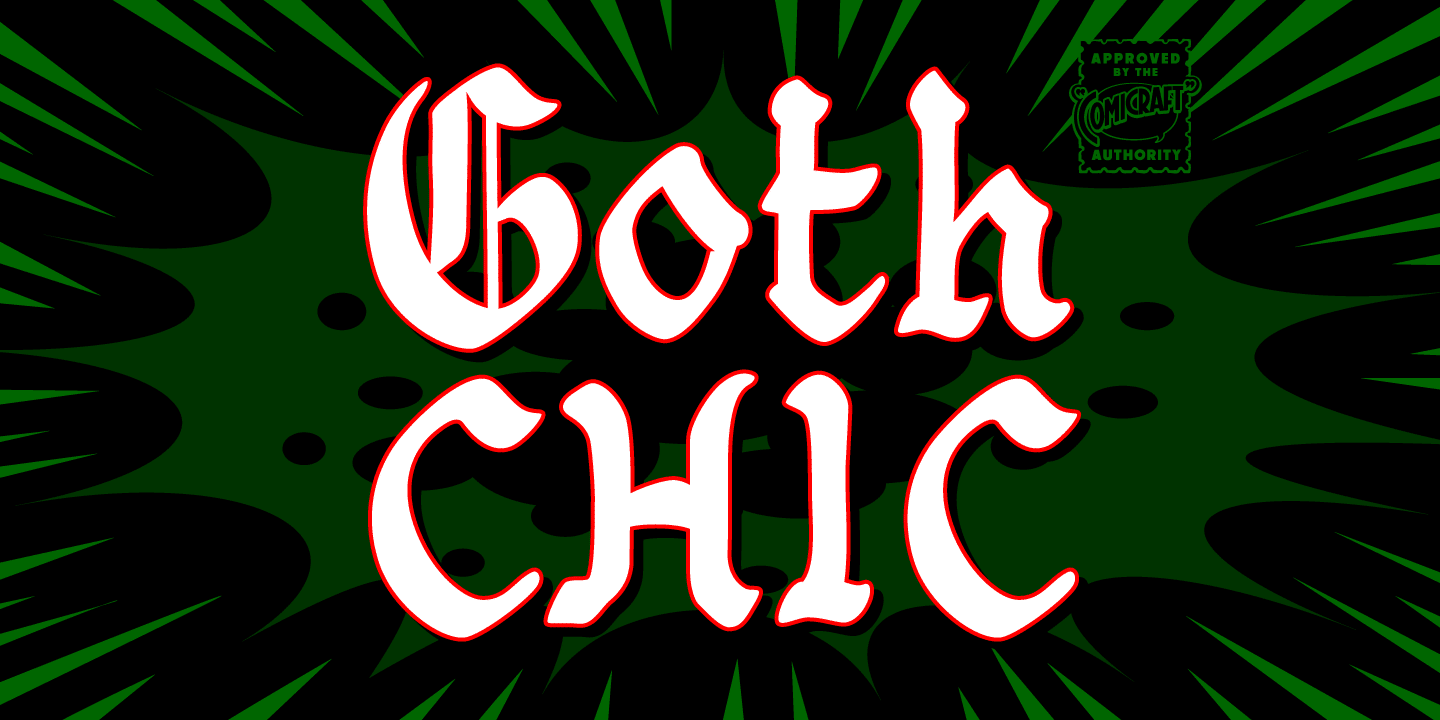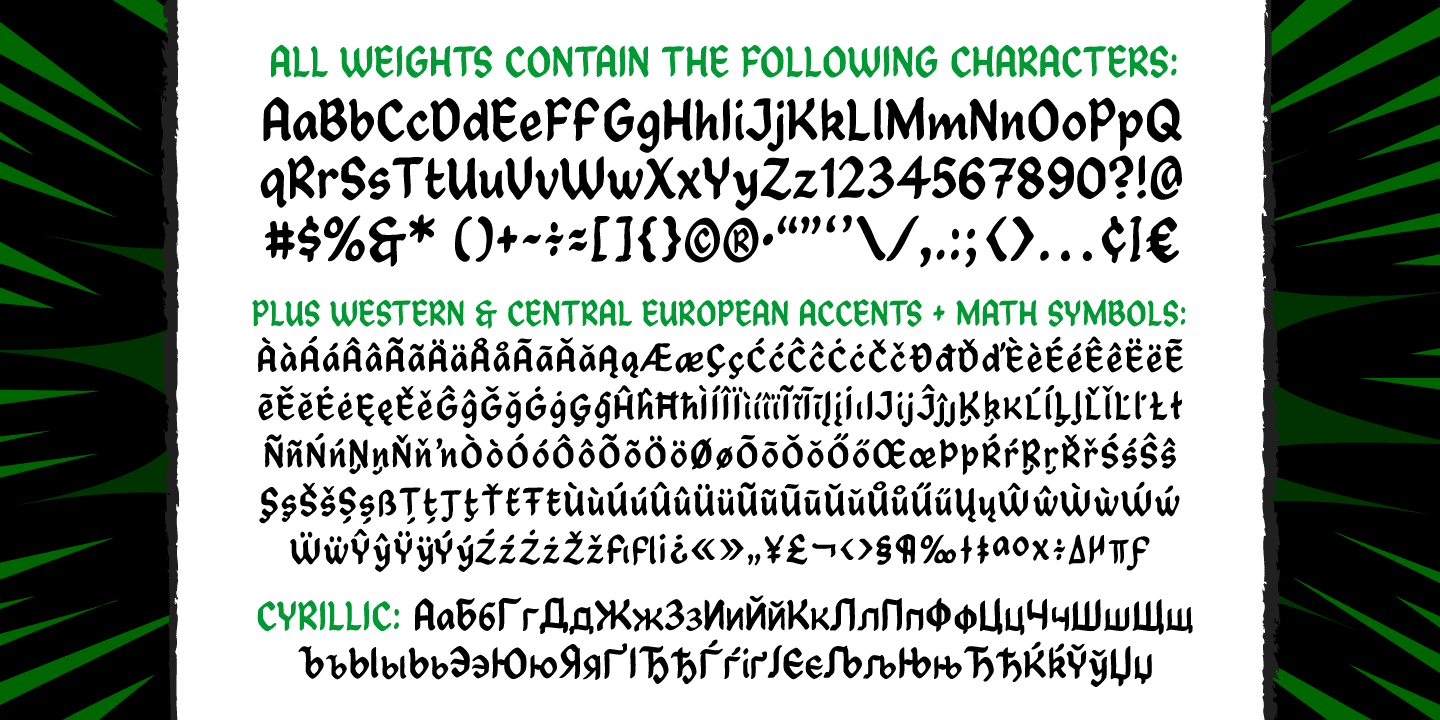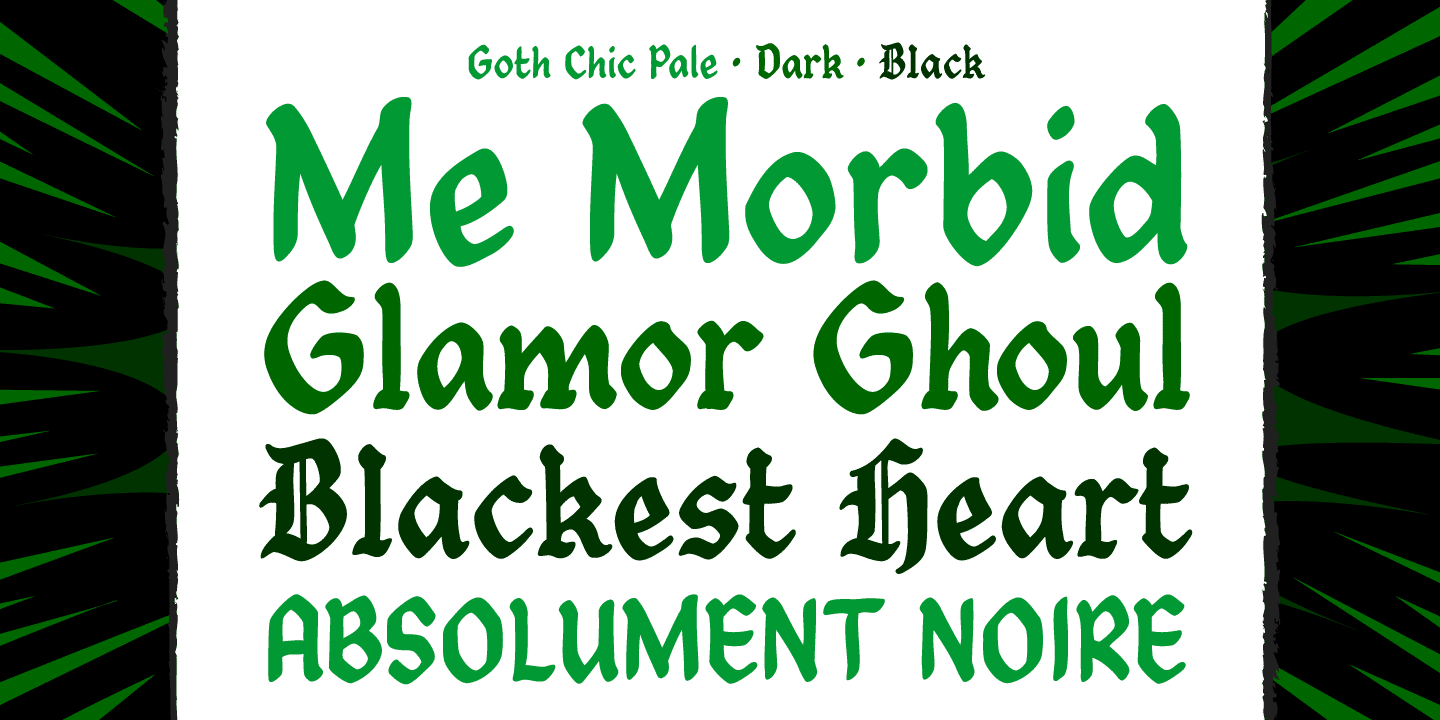
Goth Chic
Font Family by Comicraft Fonts
This pale face -- a Byronic offering from the disaffected youth section of our library -- will provide that slightly sad, sunken eyed feeling most closely associated with Doc Martins, heavy crosses and clothes as black as the blaquest heart... so if you're looking for tragic tramp stamp typography, we think our tattoo parlor maid to wear font will provide just the right amount of Goth Chic.